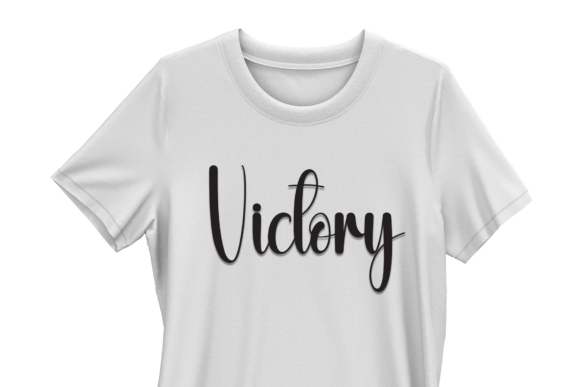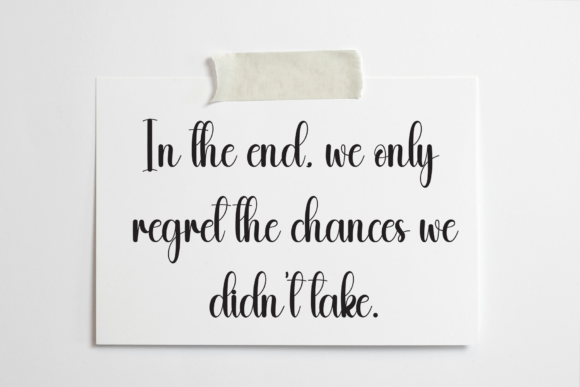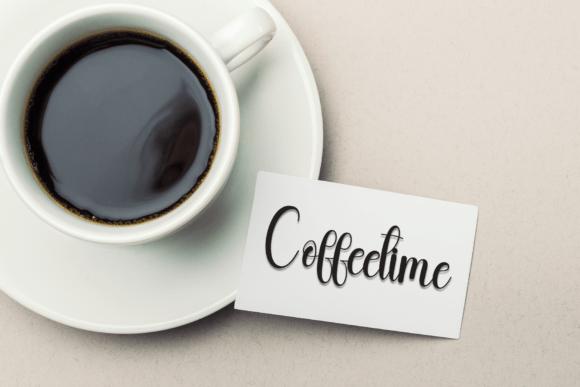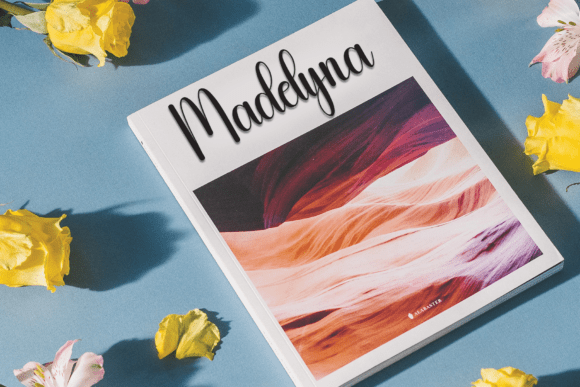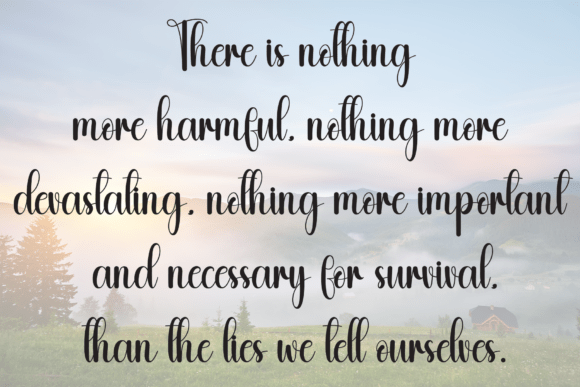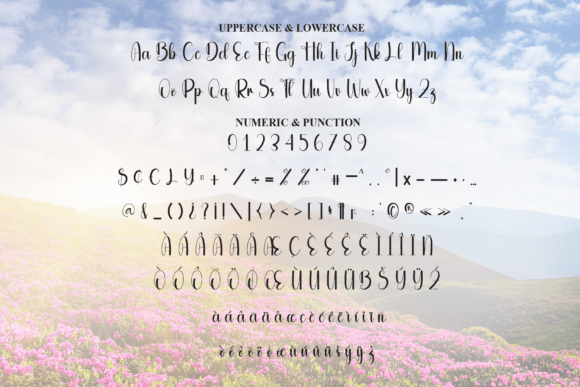
The Perfect Script for Your Next Design Project
Have you ever stared at a blank page, waiting for inspiration to strike? You know, that moment when everything clicks and your creative juices start flowing? For designers, those moments are what make all the late nights and early mornings worth it. And sometimes, all it takes is the right font to set the tone for a truly stunning project.
That’s where the Beautiful Font comes in – a stylish handwritten script font that effortlessly blends modern elegance with a playful touch. Whether you’re working on a logo, packaging, or invitation, this typeface adds a personal touch that’s sure to leave a lasting impression. With its fluid strokes and charming curves, the Beautiful Font is the perfect addition to any design project, bringing warmth, sophistication, and creativity to every piece.
For designers, the Beautiful Font is a valuable asset that can elevate even the simplest designs into something truly special. Its versatility and charm make it an ideal choice for a wide range of projects, from branding and advertising to digital media and print materials.
Key Features of Beautiful Font
- Font Family: Beautiful Font offers 5 unique font families, each with 12 styles, ranging from Thin to Black.
- Character Set: Supports a wide range of languages, including Latin, Cyrillic, Greek, and many more, with over 2,000 glyphs.
- Unique Characteristics: Beautiful Font features a unique blend of modern and elegant design elements, with subtle nuances that make it perfect for a wide range of applications, from branding and advertising to publishing and editorial content.
Designer Review: Beautiful Font
At first glance, Beautiful Font seems like a dream come true – a stunning combination of elegance and sophistication that’s sure to elevate any design project. ✨ Here are a few things that really stand out:
- Unparalleled aesthetics: Beautiful Font is a true showstopper, with its sleek lines and refined details making it a perfect fit for high-end designs.
- Exceptional legibility: The font is remarkably easy to read, even at small sizes, making it an excellent choice for body text or headlines.
- Extensive character set: Beautiful Font includes a vast array of characters, including international symbols and languages, making it a great option for global projects.
However, like any font, Beautiful Font has its limitations:
- ⚠️ Limited font sizes: While Beautiful Font looks stunning at larger sizes, it can become somewhat distorted or awkward at smaller sizes.
- ⚠️ Limited character customization: Some users may find the font’s character set too limited for their needs, particularly when it comes to special characters or diacritical marks.
Overall, Beautiful Font is a stunning choice for designers who need a high-end, elegant font that’s sure to make a statement. While it may have some limitations, its strengths far outweigh its weaknesses, making it a solid addition to any design library.
“Beautiful Font” is ideal for:
– Creating visually appealing social media graphics
– Designing elegant presentations
– Adding a touch of sophistication to documents and reports
– Creating eye-catching headings and titles